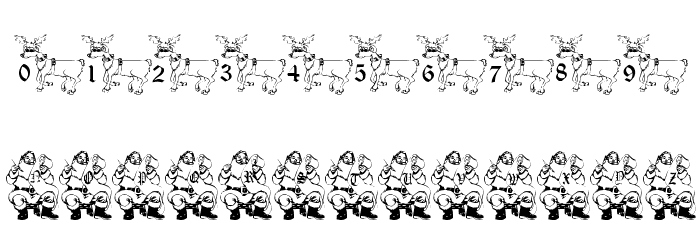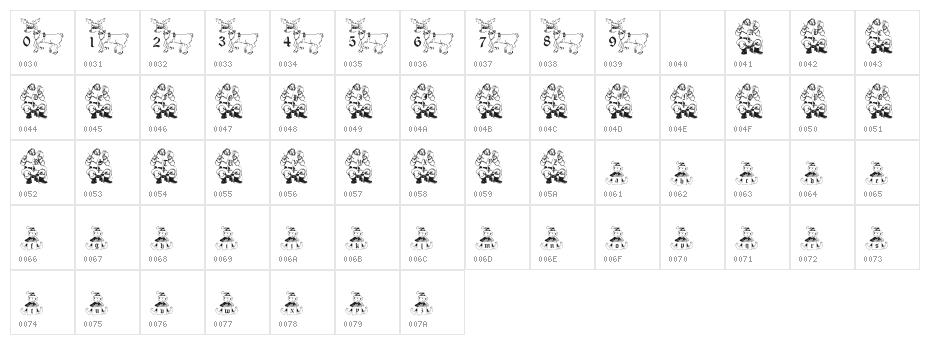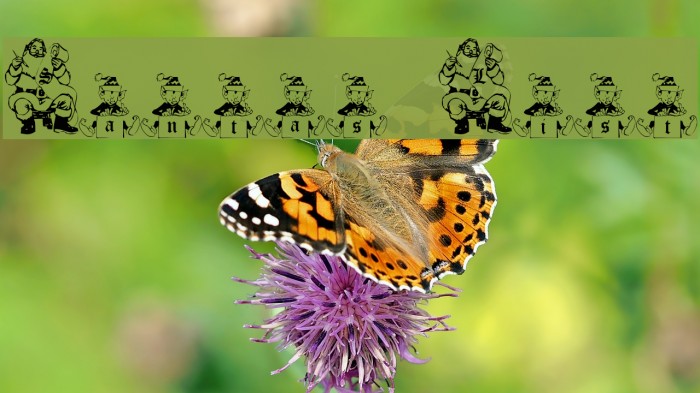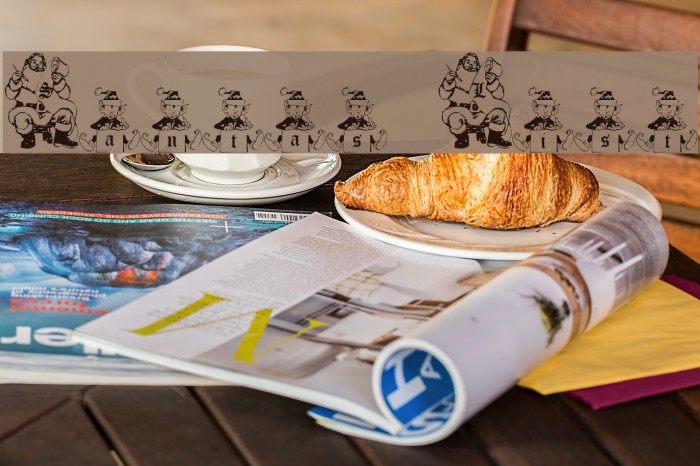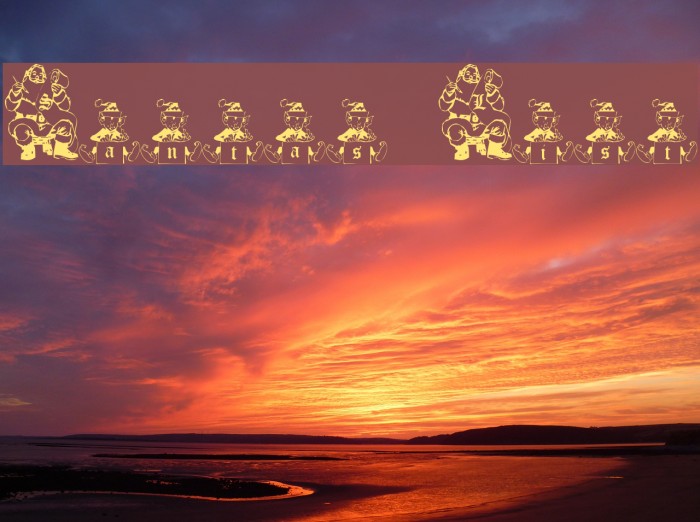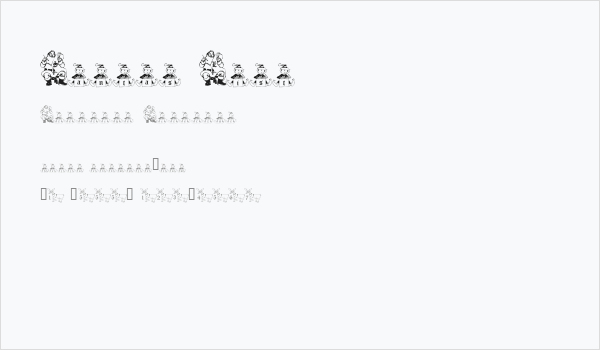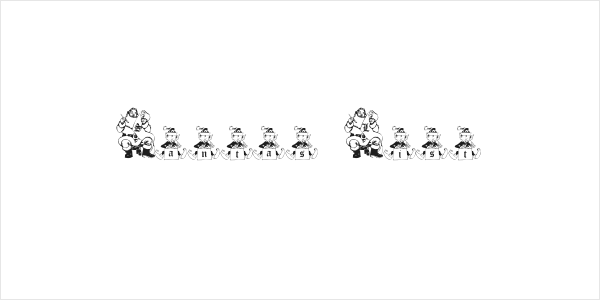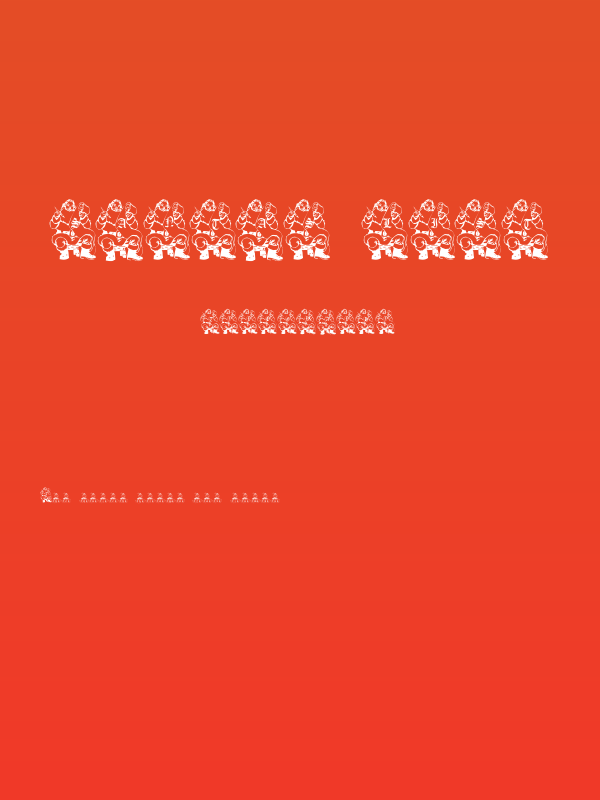
Santas List Font
Santas List Description
This whimsical and festive font features characters that are creatively integrated with holiday-themed illustrations. Each letter is accompanied by a playful depiction of Santa Claus or reindeer, adding a unique and decorative touch. The uppercase letters are represented by Santa figures, while the lowercase letters are depicted with elves holding the letters. The numbers are cleverly integrated with reindeer illustrations, enhancing the holiday spirit. This font is highly decorative, making it ideal for seasonal projects that require a touch of fun and creativity. The intricate designs of the characters make it more suitable for display purposes rather than body text.
| Proposed Projects | Ideal for holiday cards, festive banners, Christmas-themed posters, and decorative invitations. |